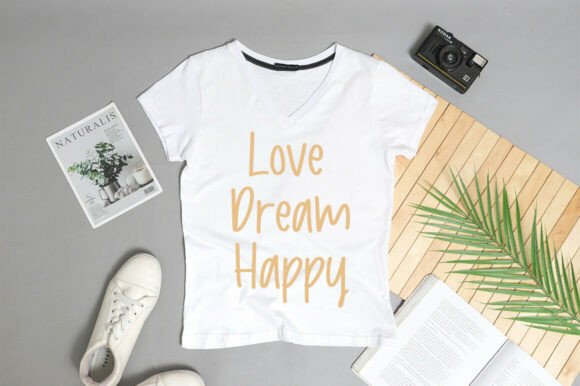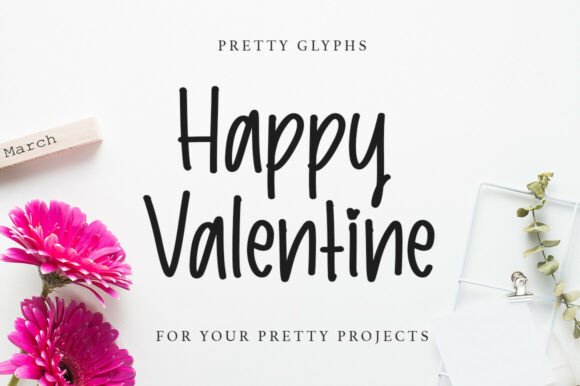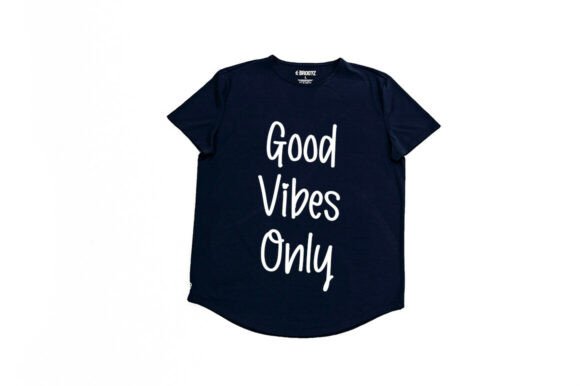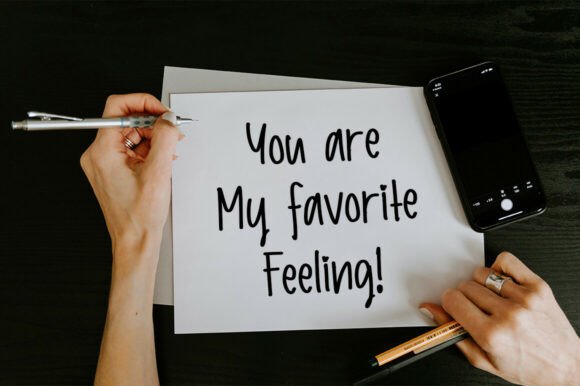
Moonlight Notes Font: A Dreamy Script for Midnight Thoughts
Have you ever found yourself scribbling down your deepest thoughts under the starry night sky, the soft glow of the moon casting a magical spell on your handwritten words? For many of us, the moment of clarity that comes with writing by the light of the moon is a truly special one. And now, you can capture that same essence in your creative projects with the enchanting Moonlight Notes Font.
This beautiful “Cute Handwritten” script is more than just a design resource – it’s a key to unlocking the whimsy and wonder of your next creative project. With its playful bounce, varied letter heights, and charming “heart” dot over the letter ‘i’, the Moonlight Notes Font is sure to add a touch of love and personality to your text.
Key Features of Moonlight Notes Font
- Perfect for adding a touch of elegance and sophistication to your design project
Honest Review: Moonlight Notes Font
I recently had the chance to work with the Moonlight Notes Font, and I must say it’s a great addition to any design project. The high quality of this font makes it perfect for creative projects where you want to add a touch of elegance.
- Works well for both digital and print designs
- Can be used for a variety of design projects, from logos to typography-based designs
Overall, I’m really impressed with the Moonlight Notes Font. It’s a great design resource that’s perfect for designers looking for a high-quality font that’s easy to use. While it may have some limitations, it’s definitely worth checking out for your next creative project.
Experiment with different font sizes, colors, and combinations to achieve a unique look. You can also use the Moonlight Notes Font in conjunction with other design elements, such as images and graphics, to create a cohesive and visually appealing design.
Compared to Moonlight Notes Font, Pacifico has a more classic and timeless feel, while Moonlight Notes Font has a more modern and whimsical design. When to use: wedding invitations, birthday cards, and other special occasion designs.
The Moonlight Notes Font is a high-quality design resource due to its clean and elegant design, making it perfect for a wide range of creative projects. Its high-resolution design ensures that it looks great on both small and large scales, and its compatibility with various design applications makes it easy to use.